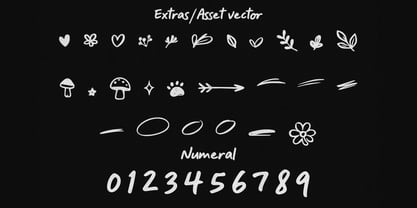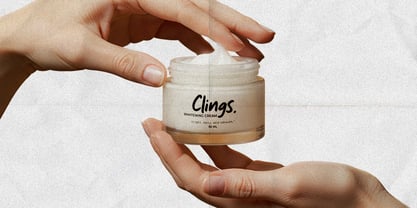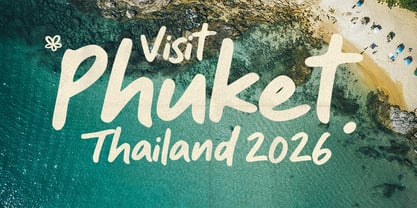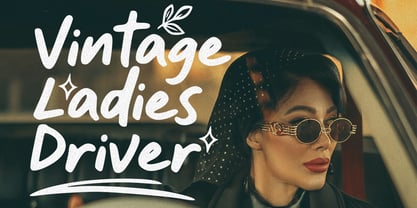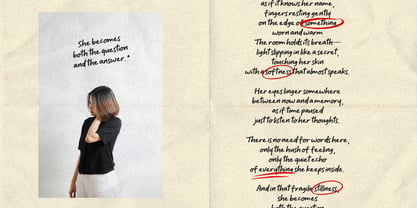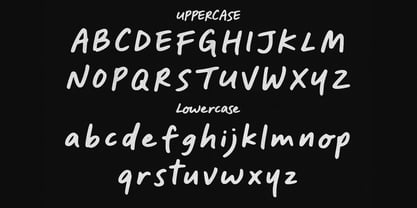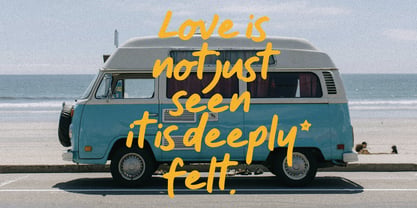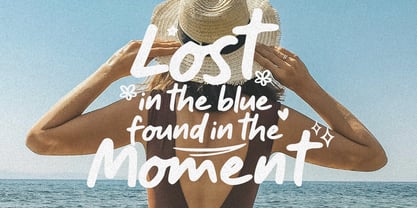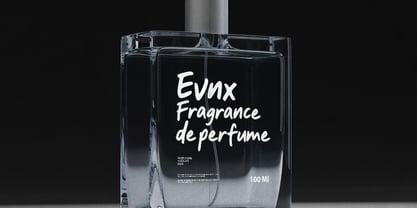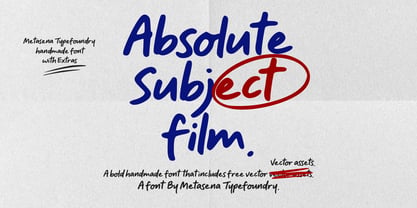
Absolute Subject Film
by Metasena Typefoundry
The Absolute Subject Film Font Family was designed by Ainal Mardiah and published by Metasena Typefoundry. Absolute Subject Film contains 2 styles and family package options. More about this family
Absolute Subject Film is a bold and expressive handwritten font crafted to capture the raw beauty of natural hand strokes. Designed with a cinematic touch, this font brings an authentic, organic feel that perfectly blends artistic freedom with modern style.
Each letter is carefully drawn to reflect real hand movements, featuring dynamic lines, subtle imperfections, and smooth flow, making it ideal for branding, logos, posters, social media, packaging, and creative projects that need a personal and emotional touch.
What makes Absolute Subject Film even more powerful is the included extras vector pack, featuring a collection of hand drawn stroke elements, swashes, and textured scribbles. These bonus graphics allow you to enhance your designs effortlessly, adding depth, motion, and a handcrafted aesthetic.
Features:
• Natural handwritten style with authentic strokes
• Smooth, flowing, and expressive letterforms
• Perfect for modern branding and artistic projects
• Bonus extras: hand-drawn stroke vectors & scribble elements
• Easy to combine with illustrations and layouts
Absolute Subject Film is more than just a font it’s a visual expression of creativity, giving your designs a unique, cinematic, and human touch.